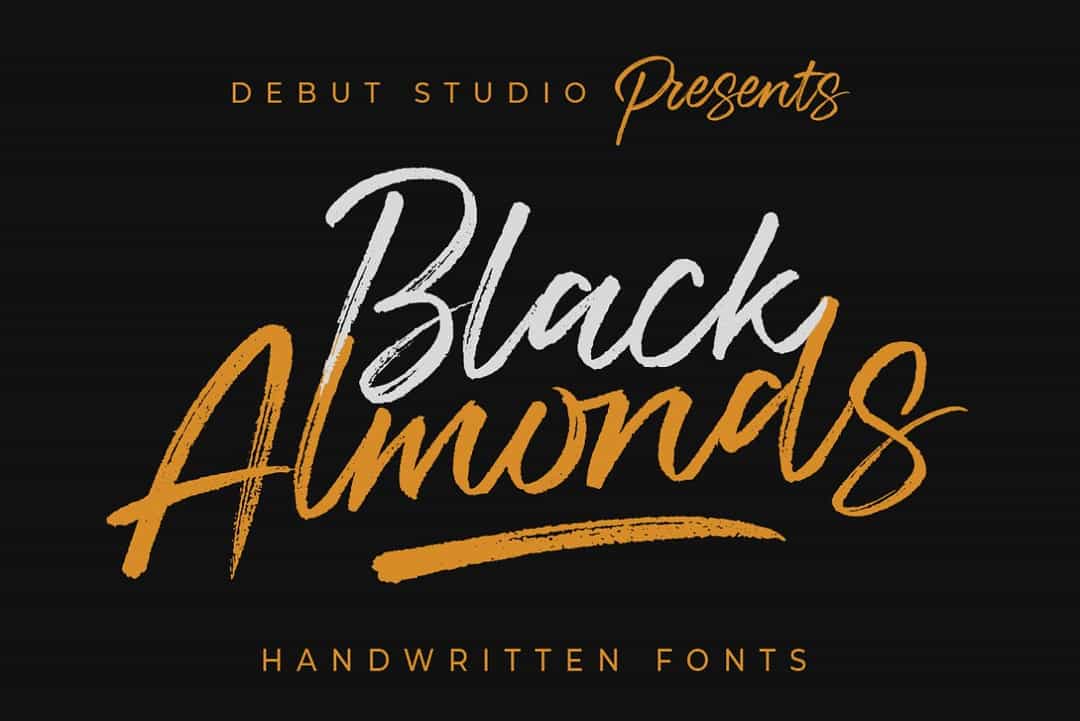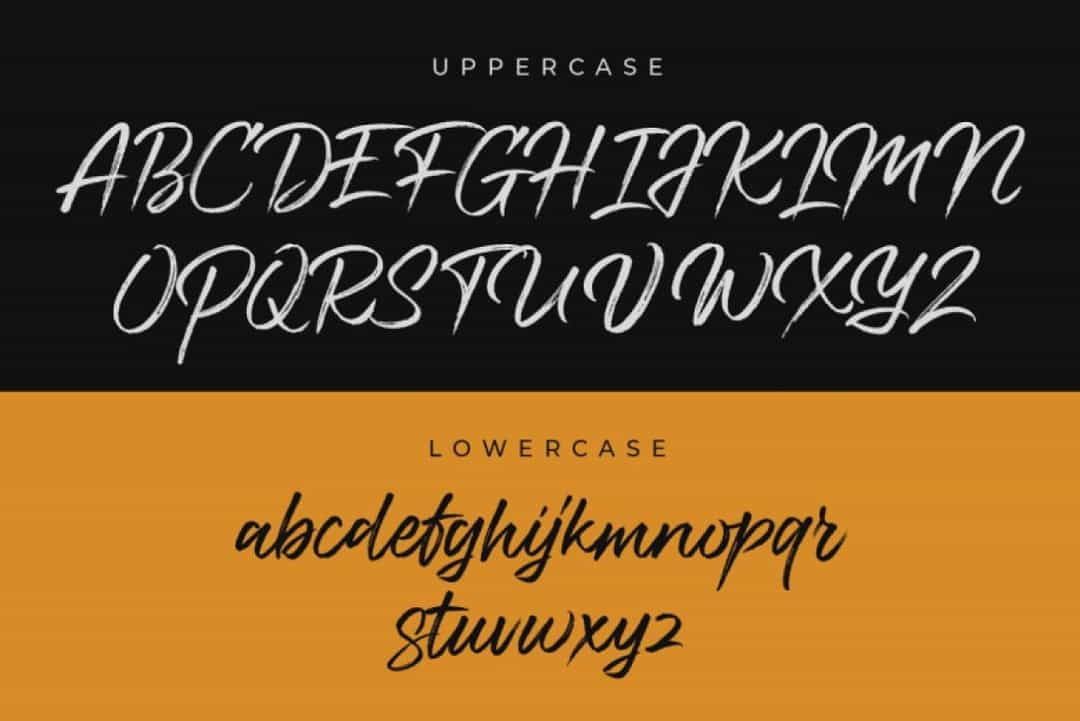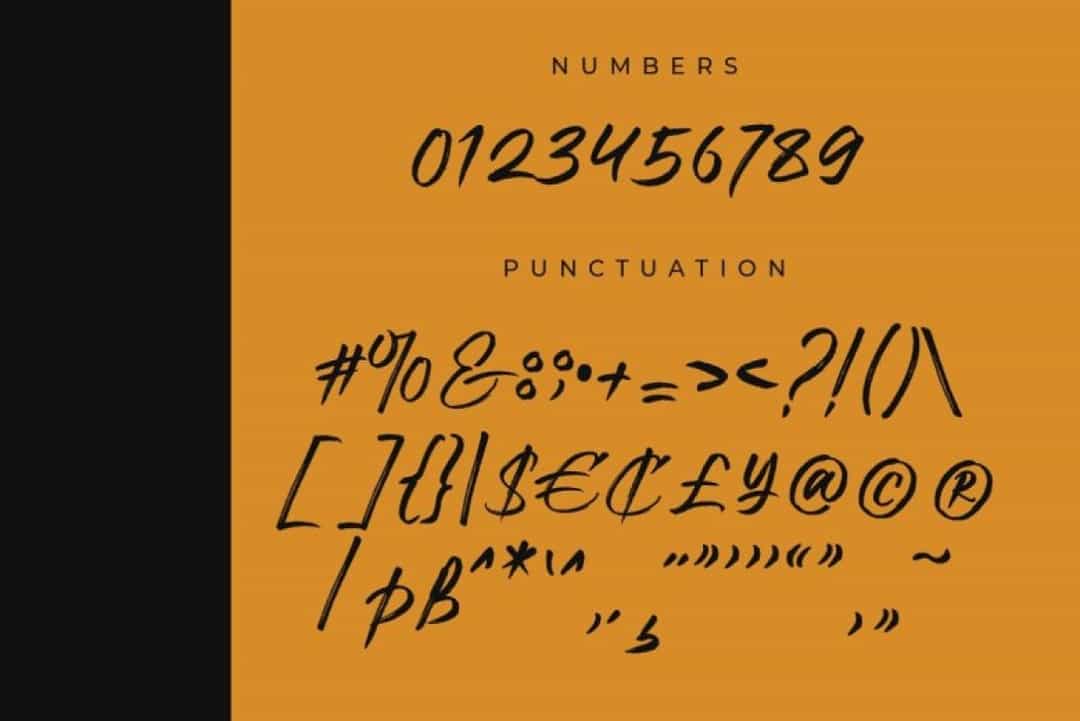
Discover Black Almonds Font, part of the Brush collection—a versatile and unique font perfect for adding a personal touch to your projects. Download it for free and enjoy crafting designs with style, from invitations to social media posts. This font is available exclusively for personal use, giving you the freedom to create without limits. Unlock your creativity with Black Almonds Font today!
Debut Studio’s Black Almonds Font is an attractive brush script with handwritten style and brush fonts that makes your design more engaging. Ideal for professional project branding such as logos or quotes.